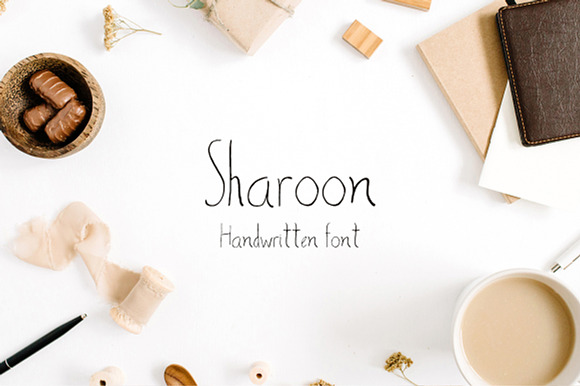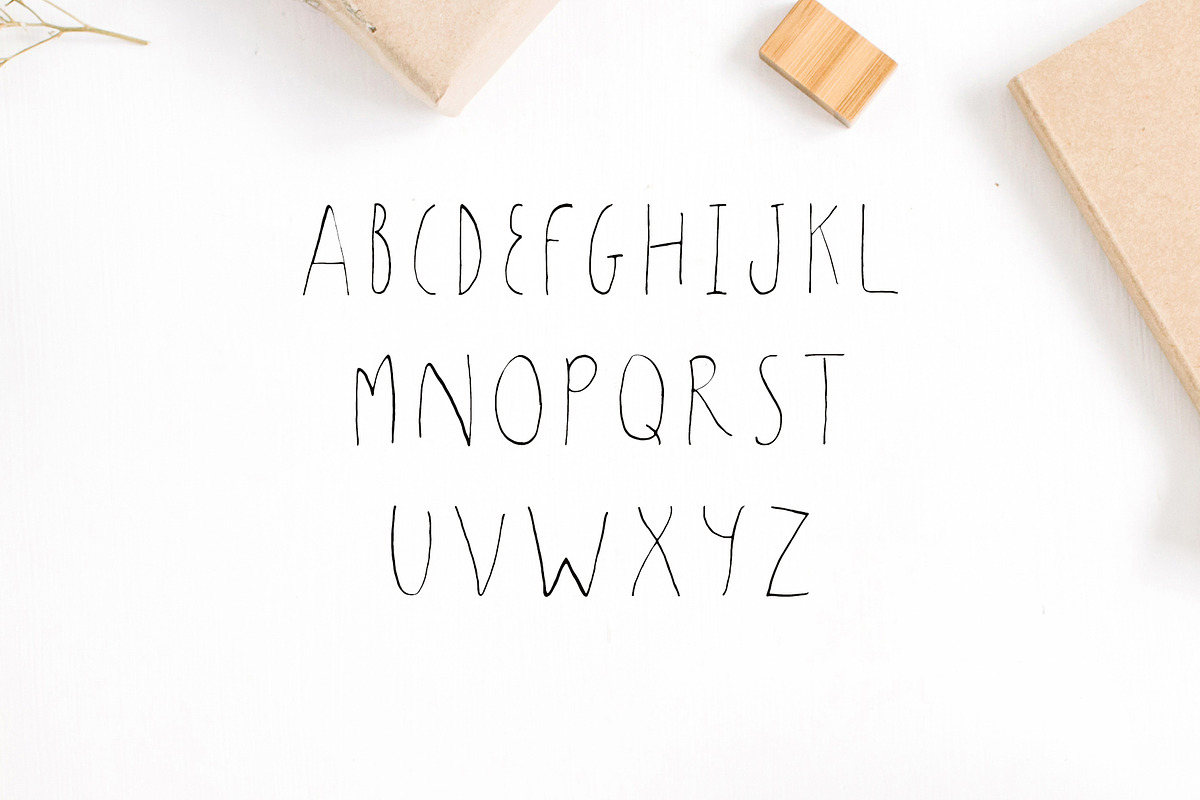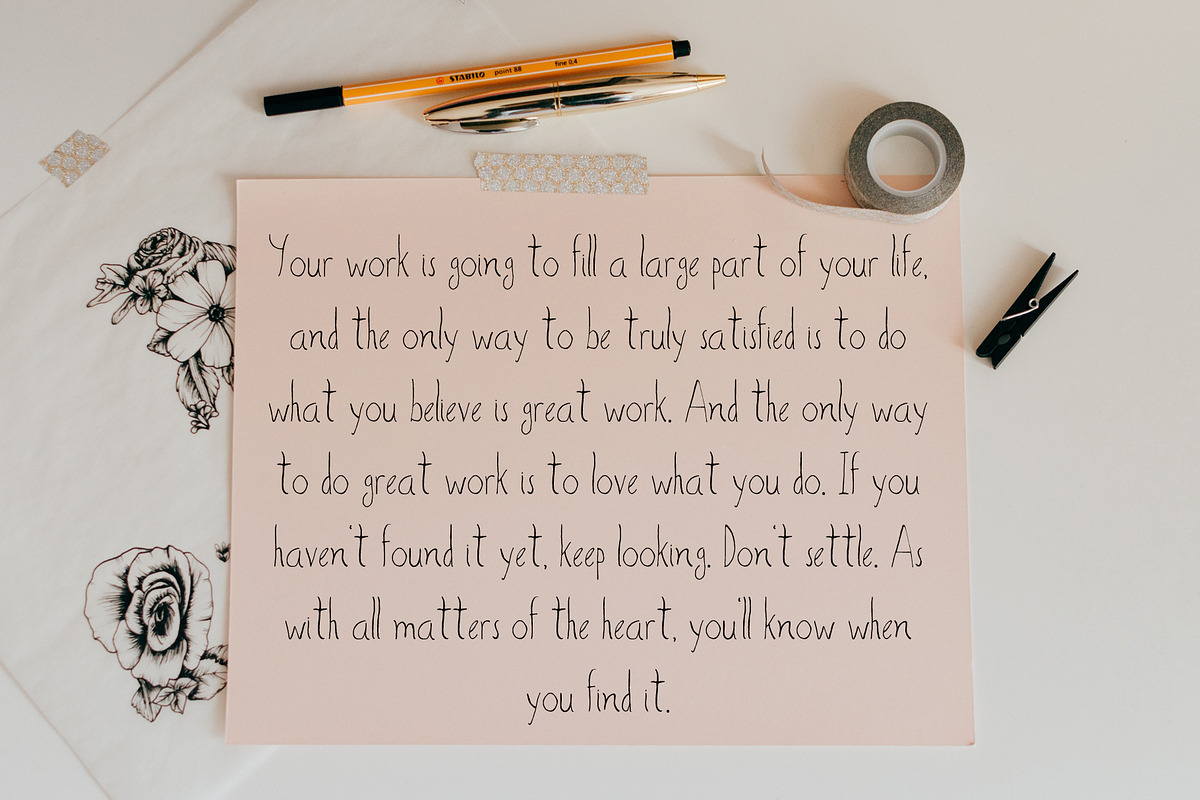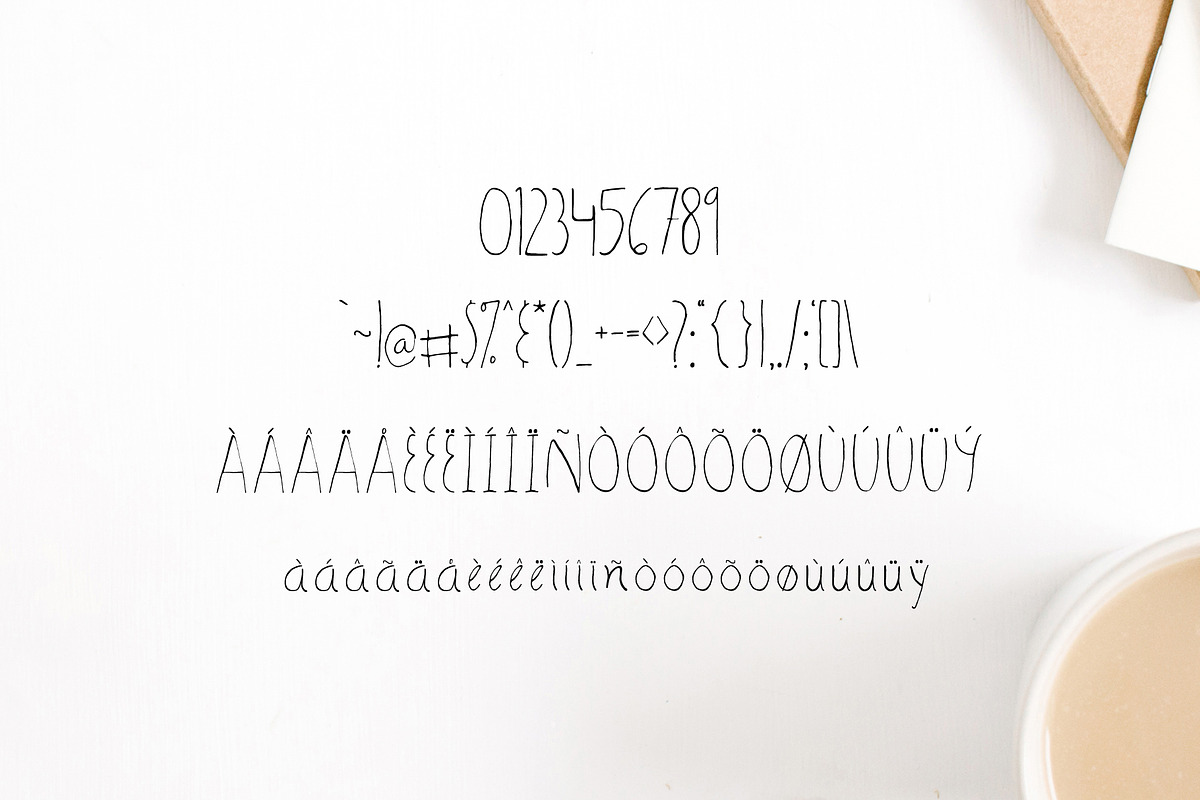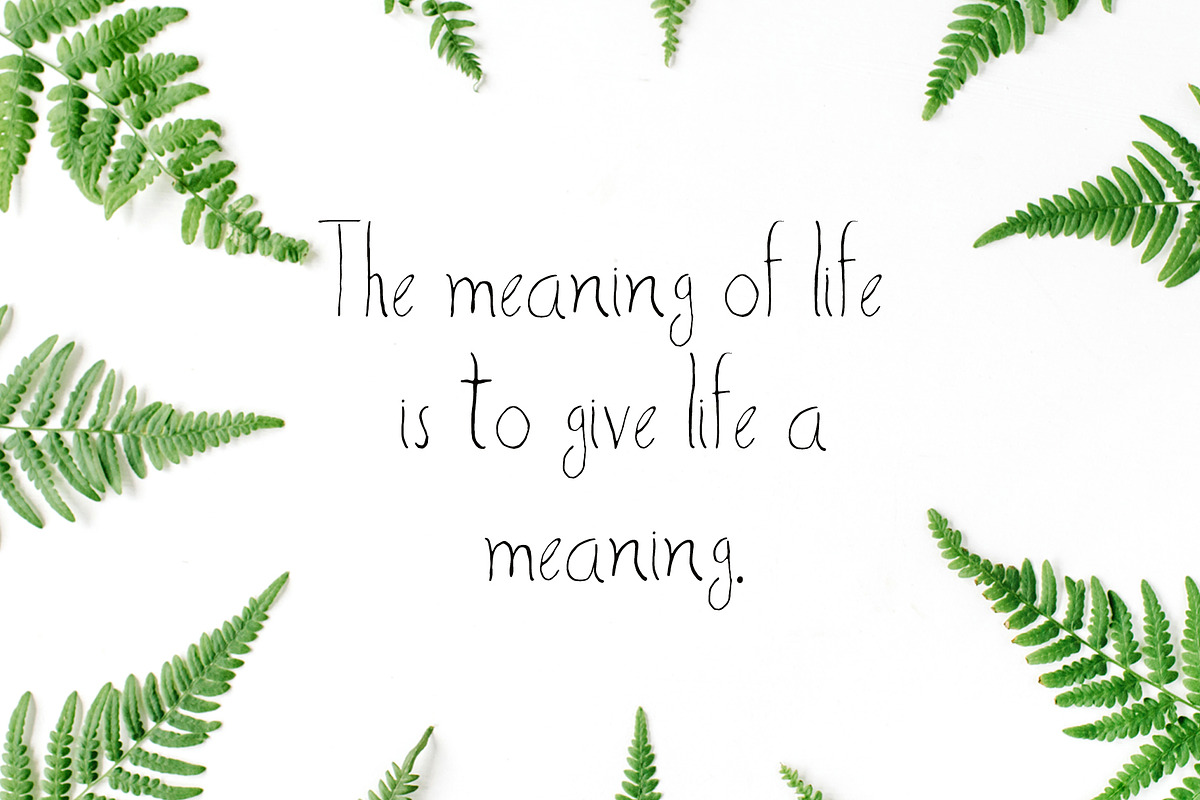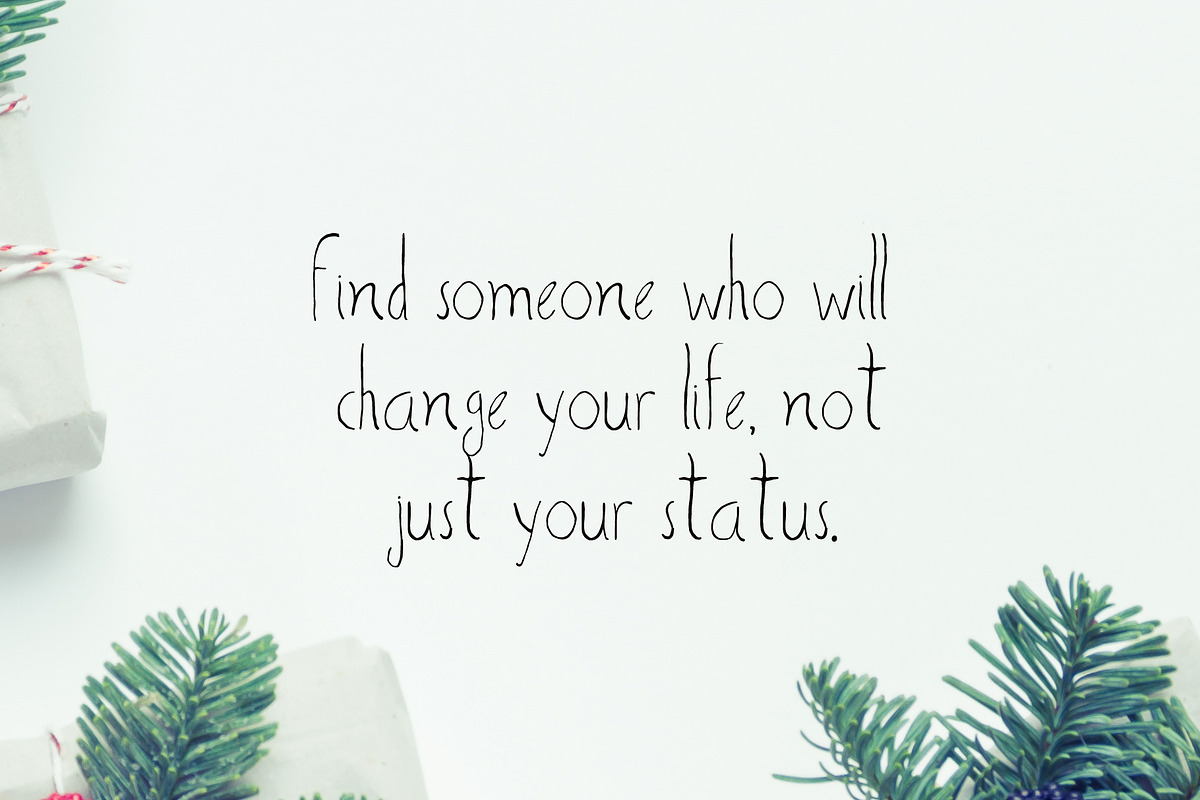
Sharoon Handwritten Sans Serif Font
Sharoon is a sweet handwritten font that is perfect for logos, quotes, invitations, badges, labels, packaging design, blog, websites, designs, headlines, banners, t-shirt/apparel, greeting card, wedding invitation and more.
Sharoon Font Features:
Non English Characters ( Latin Supplement )
Sharoon Handwritten Sans Serif Font by Creativetacos fits naturally into Branding, posters, packaging, typography.